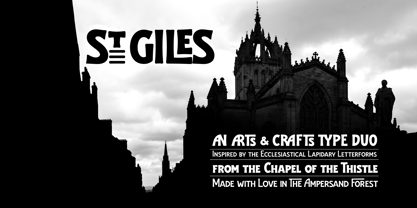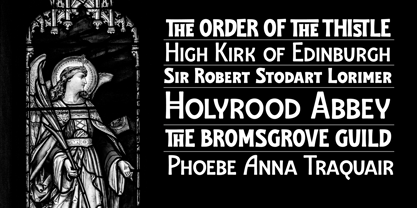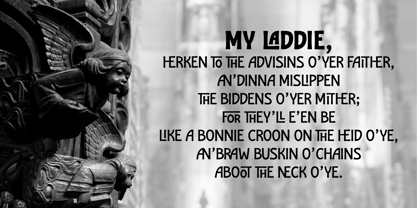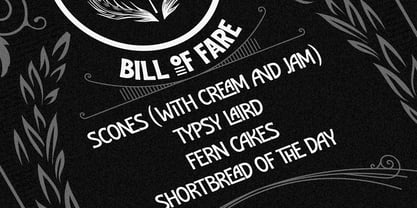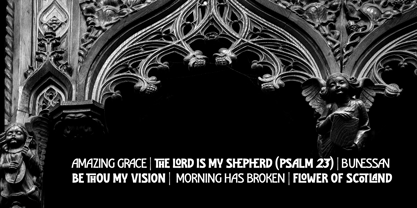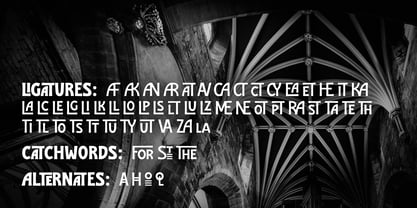
Saint Giles
by The Ampersand Forest
The Saint Giles Font Family was designed by DC Scarpelli and published by The Ampersand Forest. Saint Giles contains 2 styles and family package options.
St Giles is a family of two decorative, lapidary typefaces inspired by the Arts & Crafts letterforms carved outside the Chapel of the Thistle in the High Kirk of Edinburgh.
Designers: DC Scarpelli
Publisher: The Ampersand Forest
Foundry: The Ampersand Forest